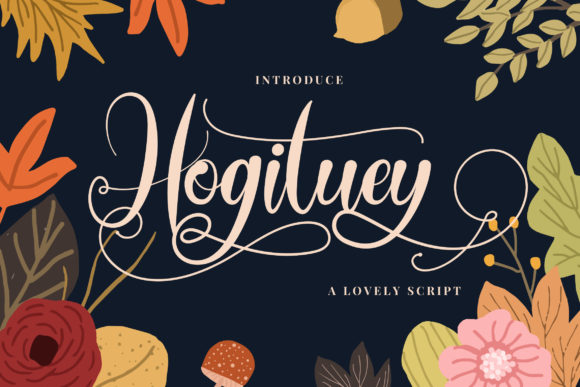
Journey into the Realm of Elegance: Unveiling the Enchanting Hogituey Script Font
In the realm of typography, where letters dance and words come alive, there exists a font that captivates hearts and ignites imaginations. Allow us to introduce you to Hogituey, a script typeface that exudes charm and sophistication, leaving an indelible mark on your creative endeavors.
Hogituey, crafted by the talented Vunira, is a symphony of graceful curves and delicate strokes, evoking a sense of timeless beauty. Its elegant appearance is sure to elevate your designs, adding a touch of refinement and personality that will leave your audience spellbound.
With its sweeping ligatures and expressive alternates, Hogituey invites you to explore a world of endless possibilities. Whether you're crafting wedding invitations, designing logos, or creating social media graphics, this versatile font will effortlessly adapt to your vision, adding a touch of elegance and charm that will make your projects shine.
Immerse yourself in the world of Hogituey and discover the magic it holds. Its alluring aesthetics will captivate your audience, leaving them captivated by your creations. Unleash your creativity and let Hogituey guide you towards typographic excellence.